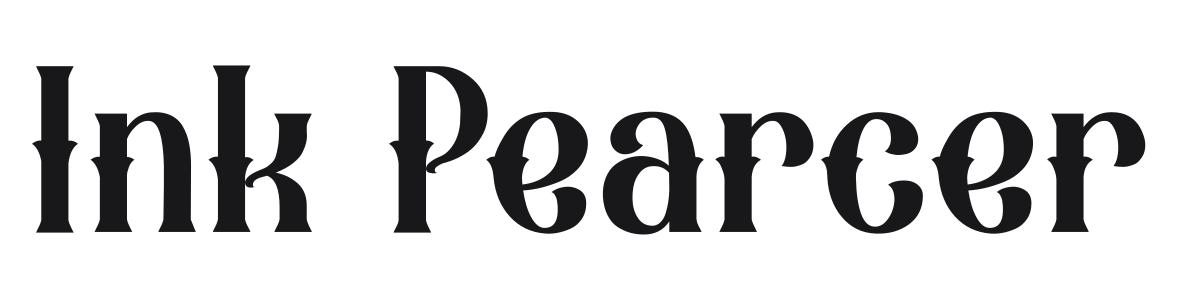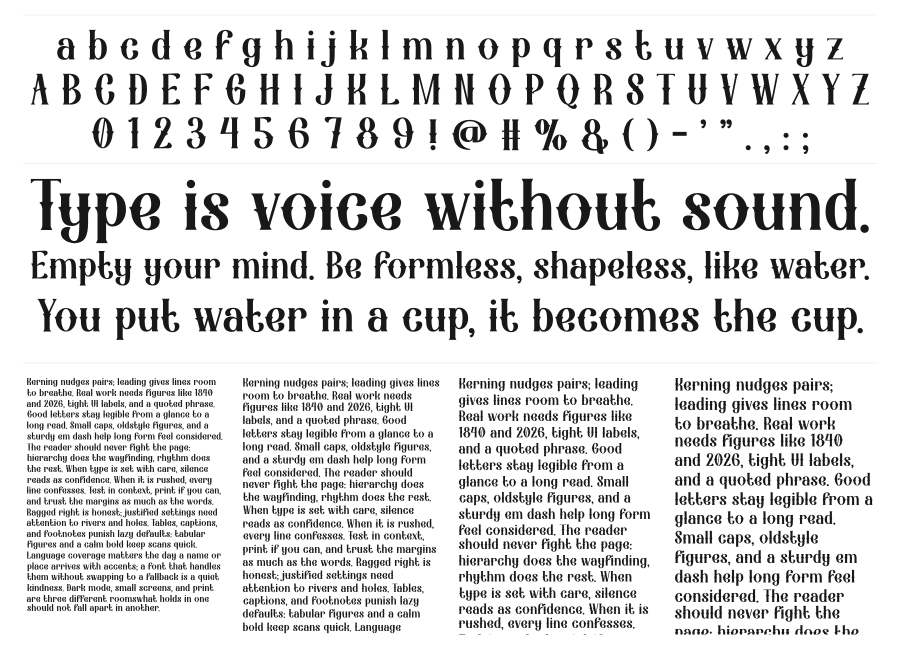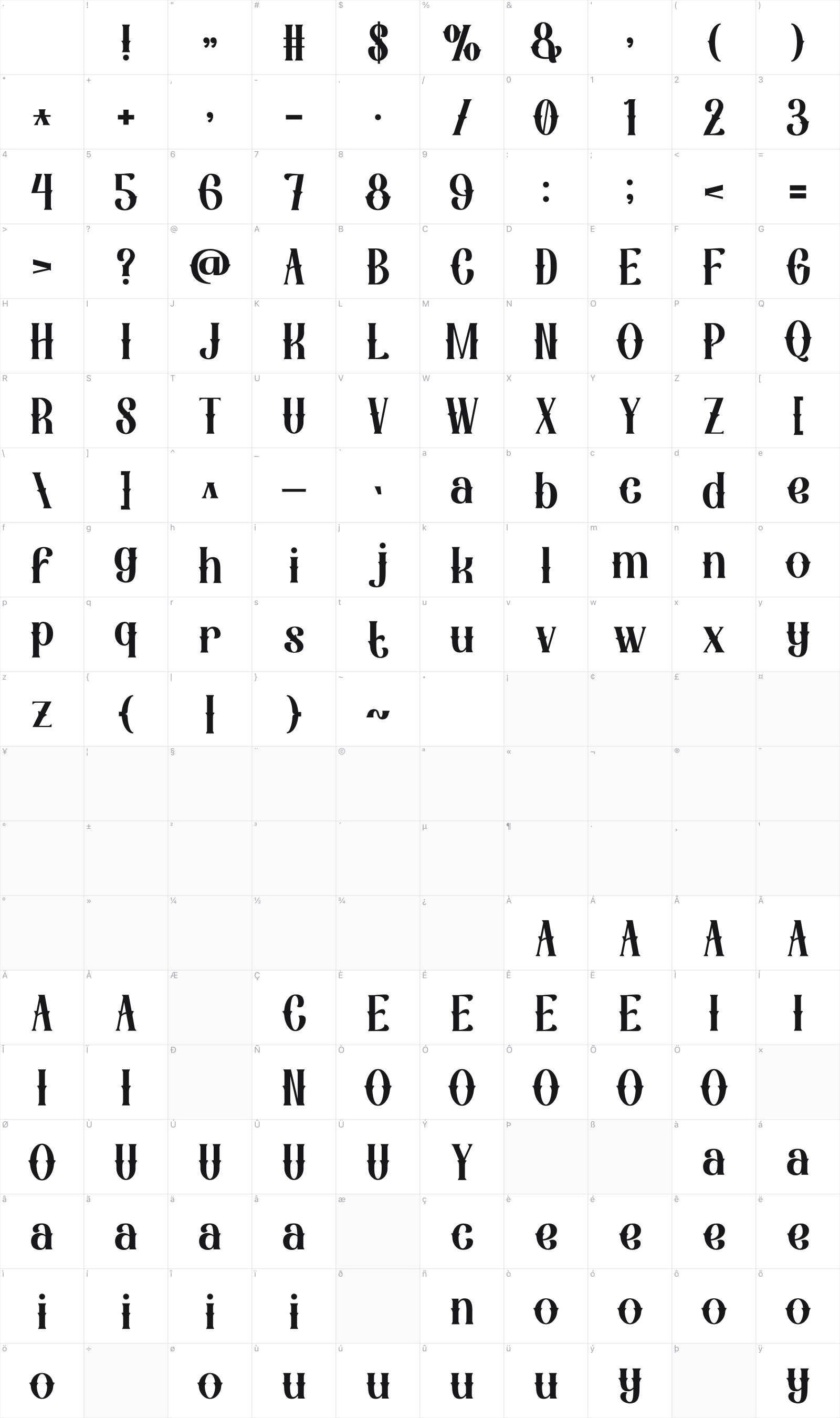
Ink Pearcer
Ink Pearcer is a high-contrast serif built around the aesthetic of hand-inked tattoo lettering. The extreme weight difference between thick stems and hairline strokes, combined with sharp tapering serifs and ink-trap notches at stroke junctions, gives it a raw, hand-crafted energy. It carries real presence at large sizes in poster work, apparel, or any project leaning into dark or underground culture.